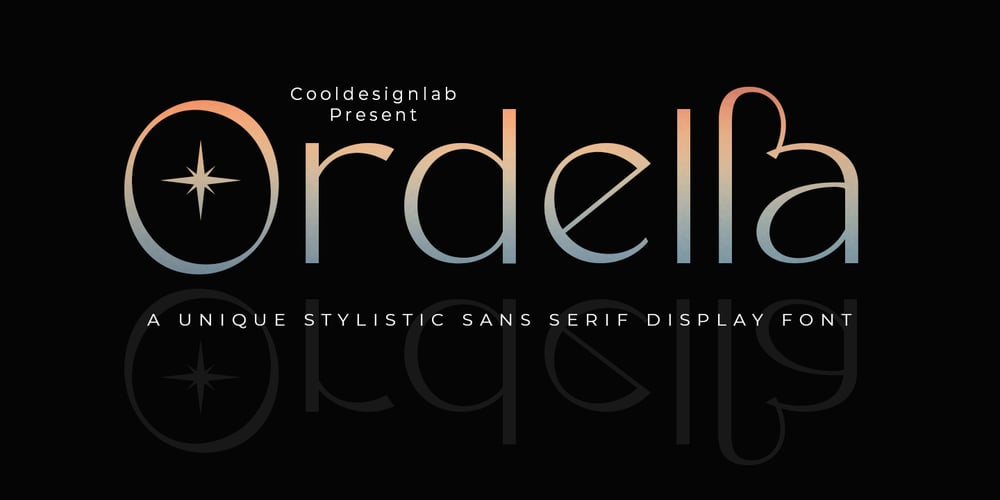
Ordella Font Family was designed by Kurniadi Saputra and published by Cooldesignlab. Ordella contains 2 styles and family package options. Ordella Sans Serif Display is a modern Sans Serif font packaged in a modern and classy style, complete with access to the OpenType feature for accessing a large selection of alternative letters and ligatures, choosing the letters you like from variations of uppercase letters to achieve a luxurious and elegant look.The unique, fun, and versatile Sans Serif family enhances any design you love. This font is perfect for branding projects, Logo designs, Apparel Branding, packaging, magazine titles, advertising, T-shirts, postcards and more.Feature· All Uppercase and Lowercase· Numbers & Symbols· Supported Languages· Alternatives and Ligatures· PUA encoded